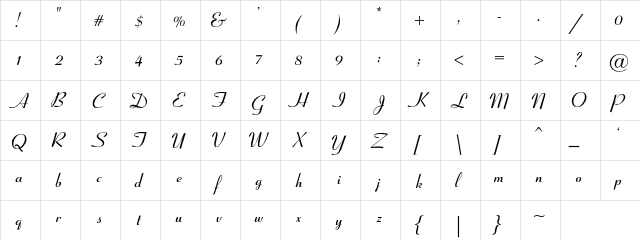
Coronet-SemiBol Regular
Design Context for Coronet-SemiBol Typeface
Coronet-SemiBol takes a measured approach to typography — its balanced proportions and neutral character make it a reliable workhorse for both digital and print work.